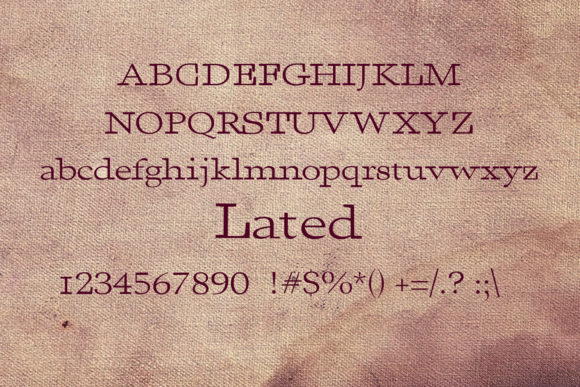
Introduction to Lated Font
Lated is a friendly serif font with classic style.
Use it for any design project that requires a vintage appearance .
Key Features of Lated Font
Why Choose Lated Font?